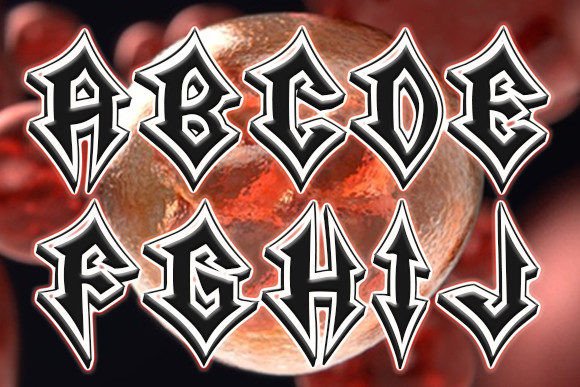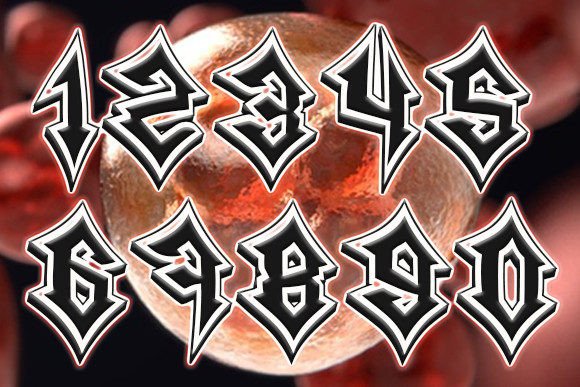
Introducing Core Font: The Ultimate Sharp Gothic Display Typeface
Are you tired of using the same old fonts in your designs? Look no further! Core Font is an awesome sharp gothic display typeface that will take your designs to the next level. With its sleek and modern aesthetic, Core Font is perfect for designers and crafters looking to add a touch of sophistication to their work.
What is Core Font?
Core Font is a sharp gothic display typeface that is designed to inspire your designs. Its unique and elegant style makes it perfect for a wide range of applications, from posters and banners to logos and branding materials. Whether you’re a professional designer or a DIY crafter, Core Font is a versatile and stylish choice that will help you create stunning visual content.
Key Features of Core Font
- Sharp and Modern Aesthetic: Core Font features a sharp and modern aesthetic that is perfect for designs that require a touch of sophistication.
- Gothic Style: With its gothic style, Core Font is perfect for designs that require a bold and dramatic look.
- Highly Versatile: Core Font is highly versatile and can be used in a wide range of applications, from posters and banners to logos and branding materials.
- Elegant and Refined: Core Font features an elegant and refined design that is perfect for designs that require a touch of luxury.
Uses of Core Font
Core Font is perfect for a wide range of design applications, including:
- Posters: Use Core Font to create eye-catching posters that will grab the attention of your audience.
- Banners: Core Font is perfect for banners, whether you’re creating a banner for a website, social media, or a physical event.
- Logos and Branding: Use Core Font to create a bold and dramatic logo that will help your brand stand out.
- Packaging: Core Font is perfect for packaging designs that require a touch of sophistication.
Benefits of Using Core Font
Using Core Font in your designs offers a range of benefits, including:
- Increased Visual Impact: Core Font is designed to grab attention and make a lasting impression.
- Improved Brand Recognition: With its unique and elegant style, Core Font can help improve brand recognition and establish your brand as a leader in your industry.
- Enhanced Creativity: Core Font is a versatile and stylish choice that can help enhance your creativity and inspire new design ideas.
Tips and Tricks for Getting the Most Out of Core Font
Here are a few tips and tricks for getting the most out of Core Font:
- Experiment with Different Sizes: Core Font looks great in a range of sizes, from small and subtle to large and bold.
- Play with Color: Core Font looks great in a range of colors, from bold and bright to subtle and muted.
- Use it with Other Fonts: Core Font pairs well with a range of other fonts, so don’t be afraid to experiment with different combinations.
In conclusion, Core Font is an awesome sharp gothic display typeface that is perfect for designers and crafters looking to add a touch of sophistication to their work. With its sleek and modern aesthetic, highly versatile design, and elegant style, Core Font is a versatile and stylish choice that will help you create stunning visual content. So why wait? Download Core Font today and take your designs to the next level!